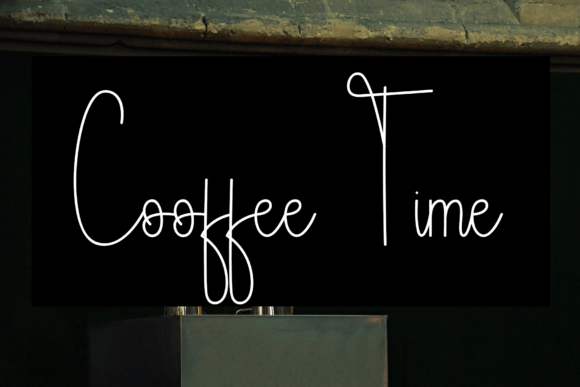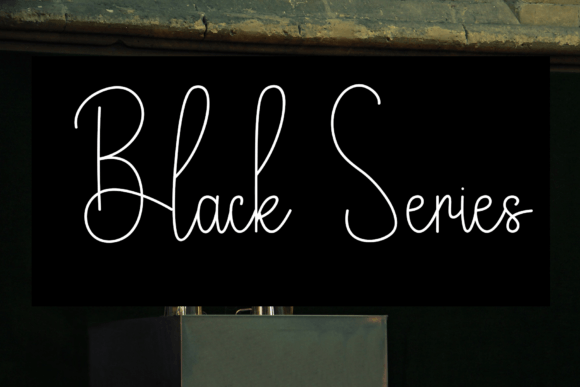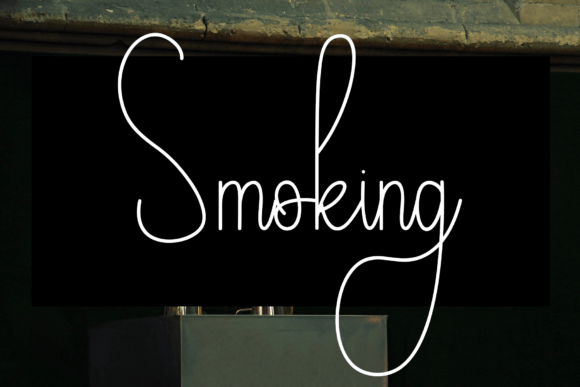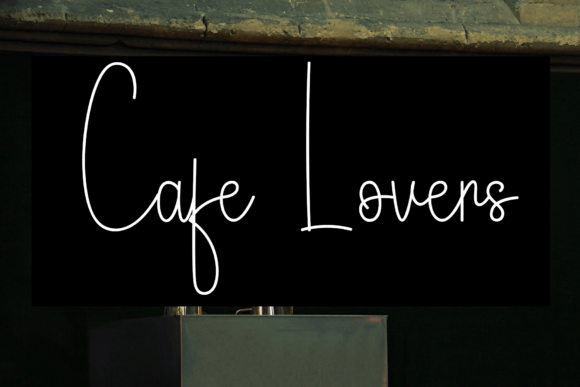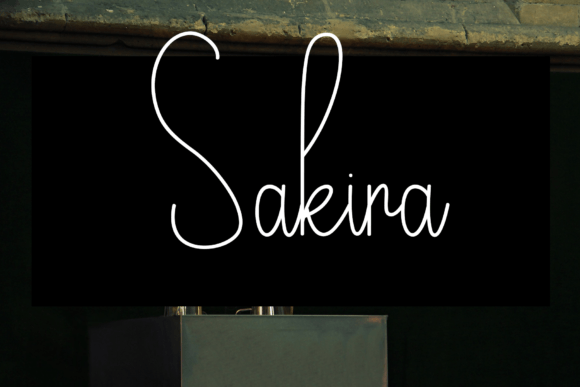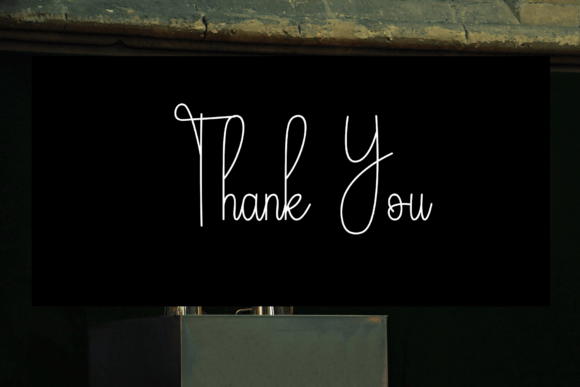
The Elegance of Calligraphy Font: A Designer’s Delight
I still remember the project that made me fall in love with the Calligraphy Font. I was working on a wedding invitation design, and my client was adamant about using a font that exuded elegance and sophistication. After hours of scouring through font libraries, I stumbled upon Calligraphy Font, and it was love at first sight! ✨ The fluid strokes, the impeccable form, and the contemporary atmosphere it brought to the design – it was exactly what I needed.
• ✨ Timeless classic feel with a modern twist, making it perfect for a wide range of design projects
• ✅ Well-balanced and harmonious letterforms that create a beautiful visual flow
• 💫 Versatile and adaptable, suitable for various design contexts, from wedding invitations to business branding
While Calligraphy Font is an exceptional font, there are a few minor quirks to be aware of: 🤔
• ⚠️ Limited use of uppercase letters in certain design contexts, as they can appear slightly less elegant than the lowercase letters
• ⚠️ Requires careful kerning to ensure optimal spacing and visual balance
Calligraphy Font was inspired by the timeless works of classic calligraphers, who spent years perfecting the art of beautiful handwriting. The font’s creator aimed to capture the essence of traditional calligraphy and infuse it with a modern twist, making it suitable for a wide range of design applications.
Q: What makes Calligraphy Font unique?
A: Calligraphy Font stands out due to its impeccable form, beautiful fluid strokes, and a perfect blend of classic and modern elements.
Q: Is Calligraphy Font suitable for body text?
A: While Calligraphy Font is beautiful, it’s recommended to use it for headlines, titles, or short paragraphs due to its elegant and cursive nature, which may not be ideal for lengthy body text.